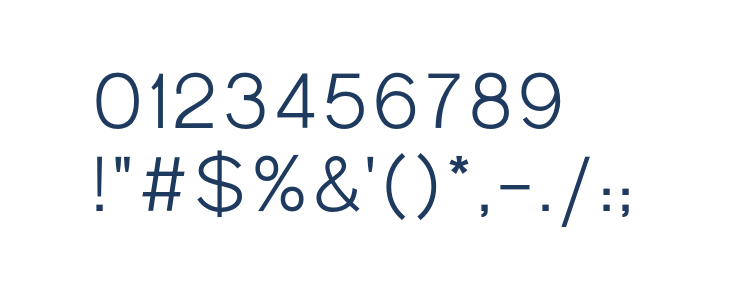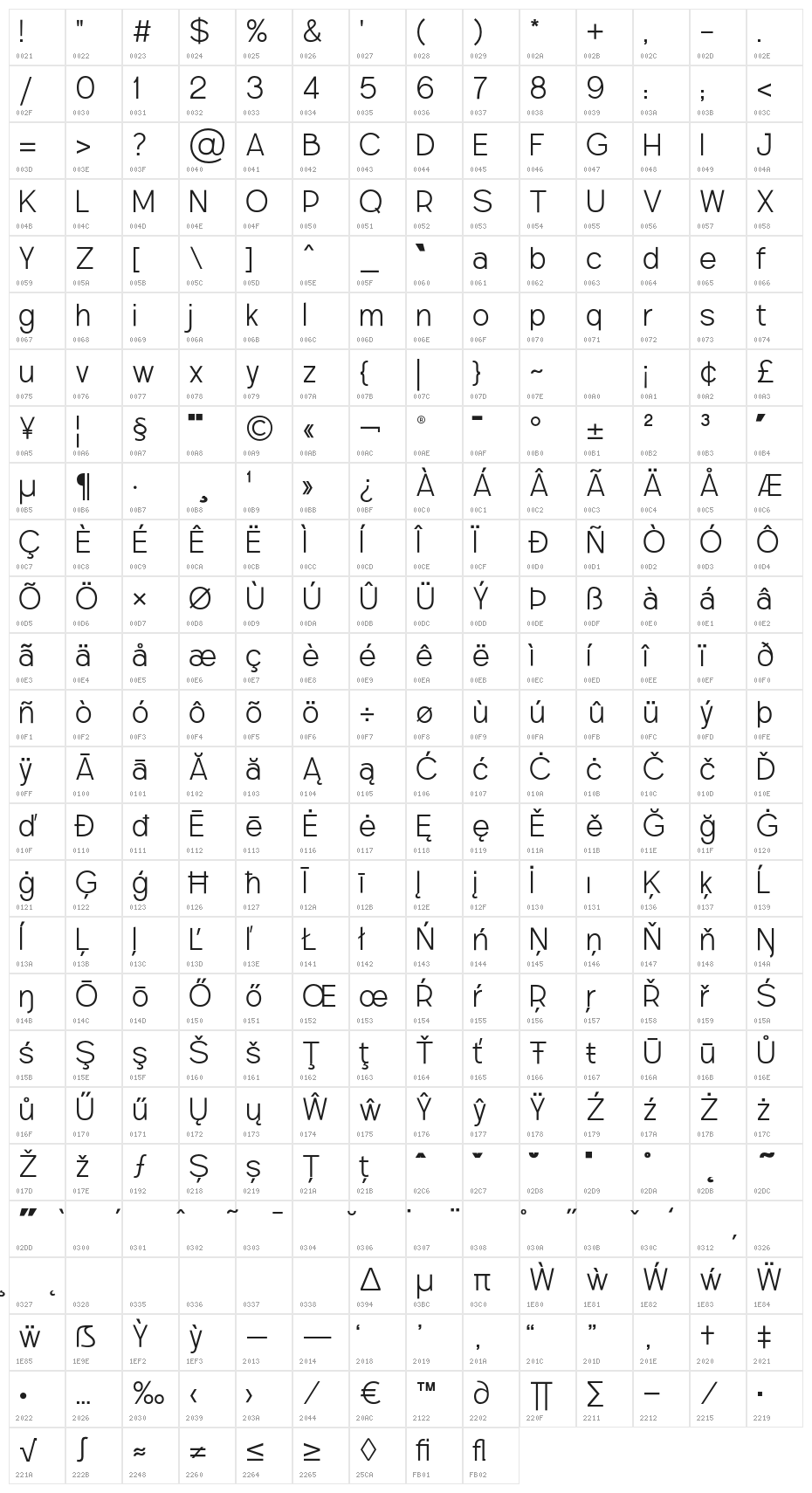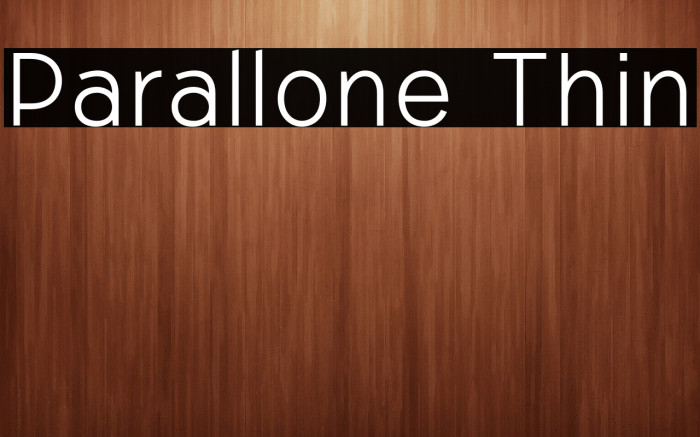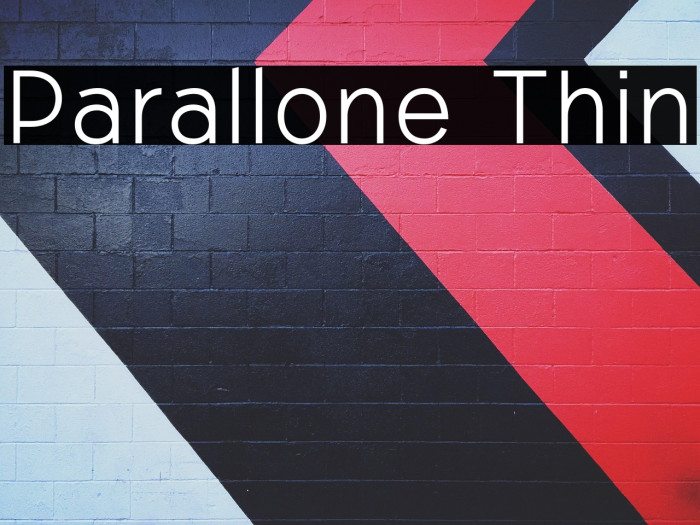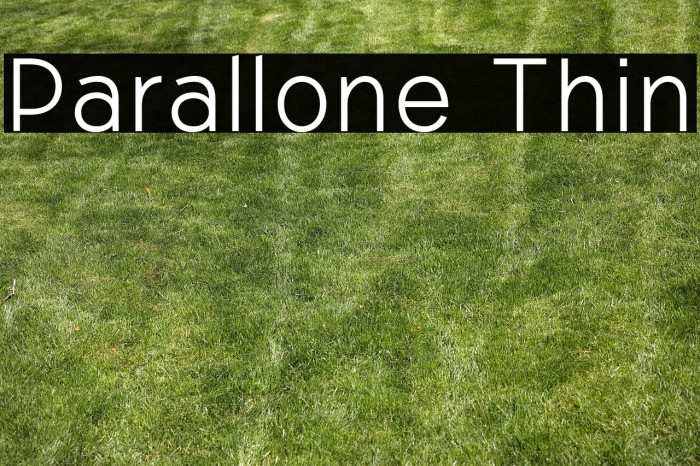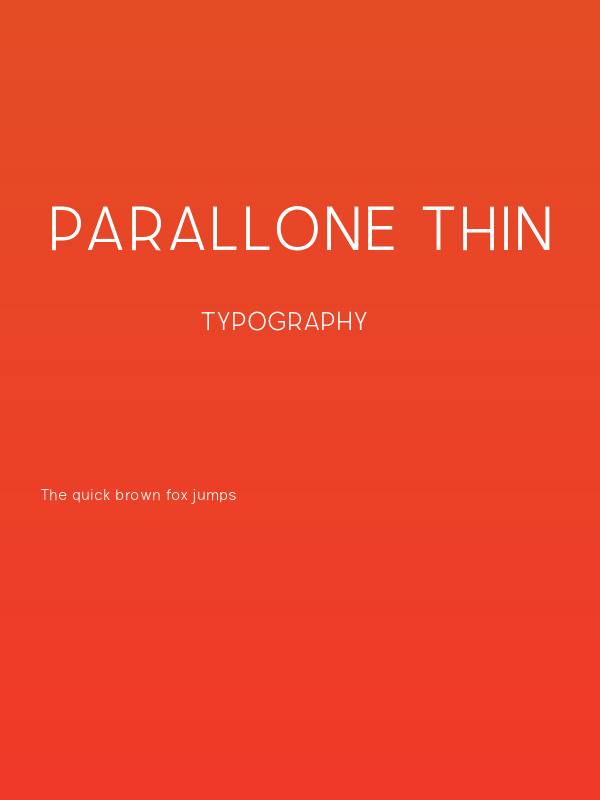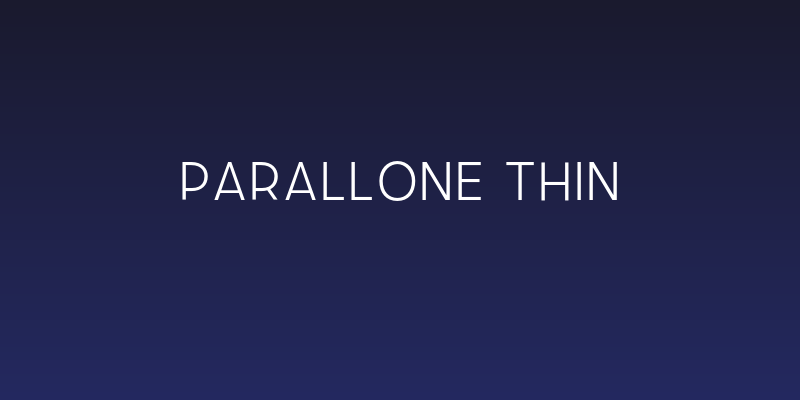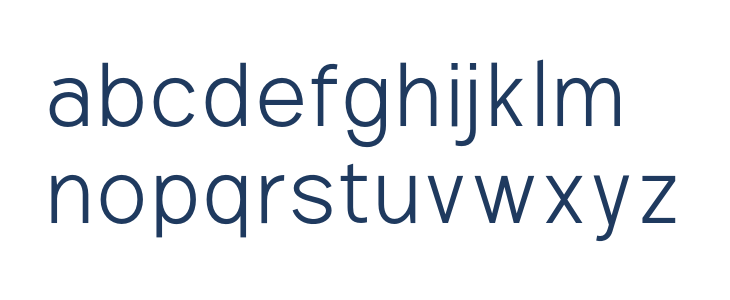
Parallone Thin Font
Parallone Thin Description
This font features a clean and minimalist design with a thin stroke weight, making it ideal for modern and contemporary applications. The characters are evenly spaced, providing a balanced and harmonious appearance. The uppercase and lowercase letters maintain a consistent style, with rounded edges that add a touch of softness to the overall look. The numerals are clear and legible, while the special characters are well-integrated into the design. This font's simplicity and elegance make it versatile for various uses.
| Proposed Projects | Ideal for modern branding, minimalist websites, and sleek editorial layouts. |